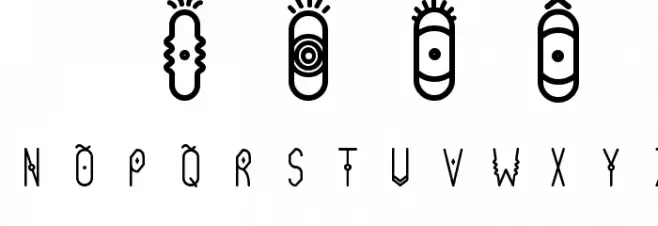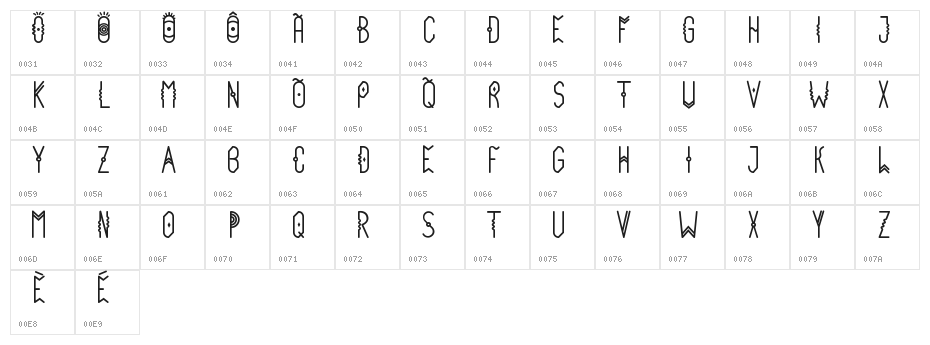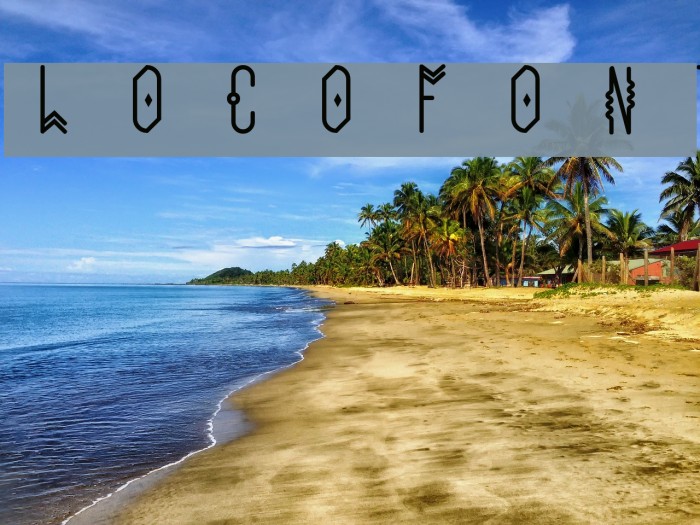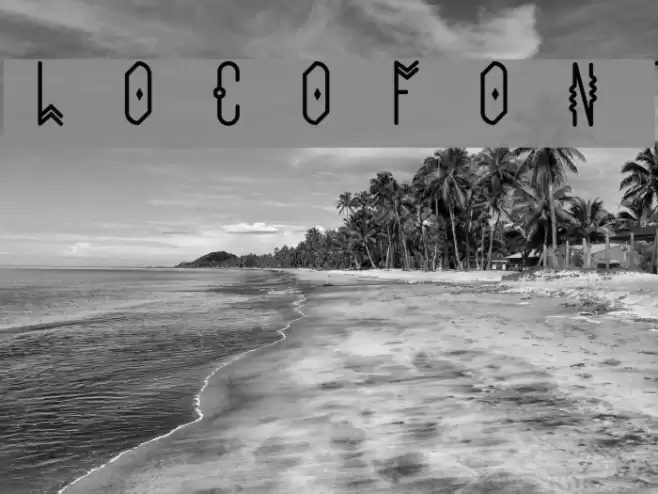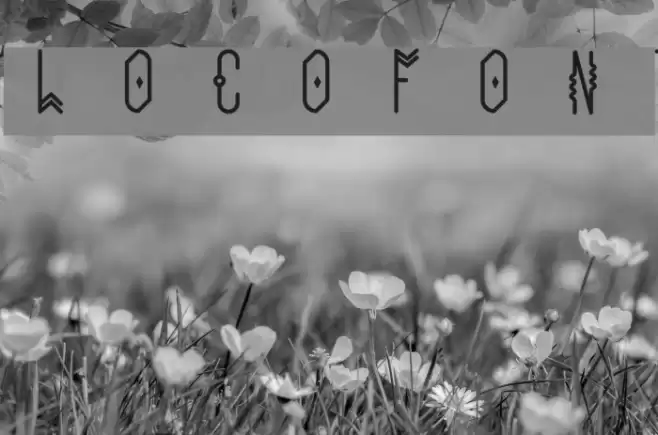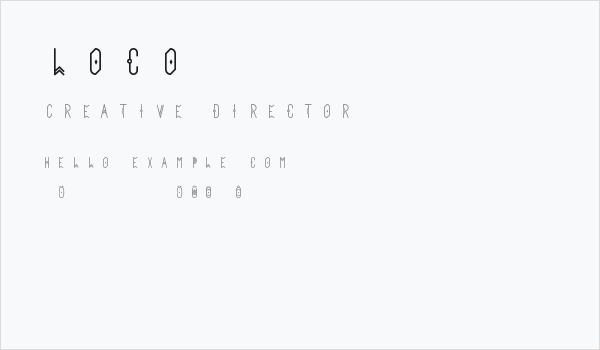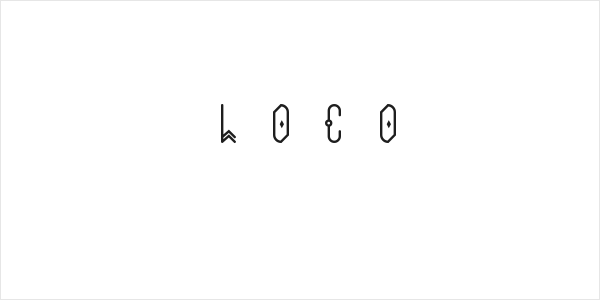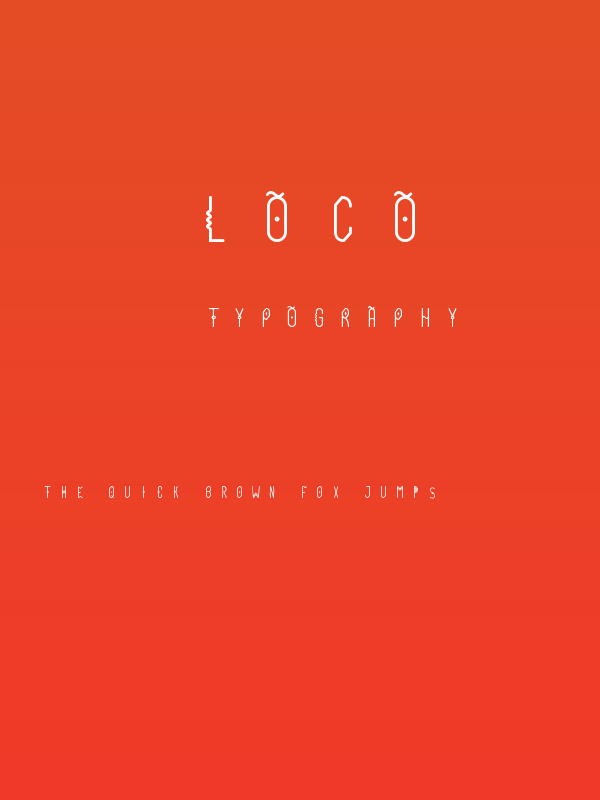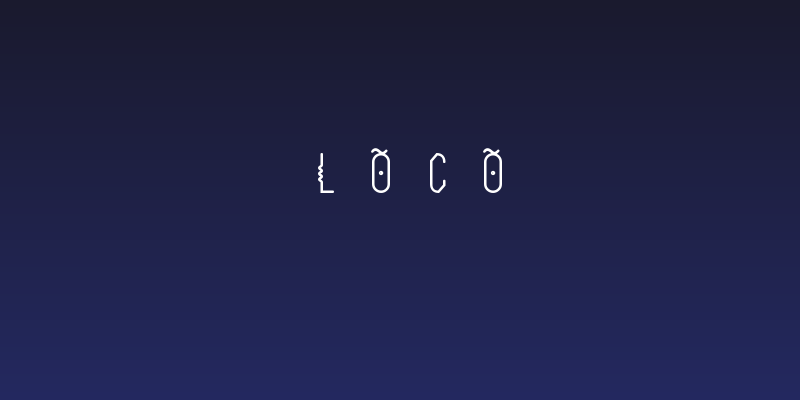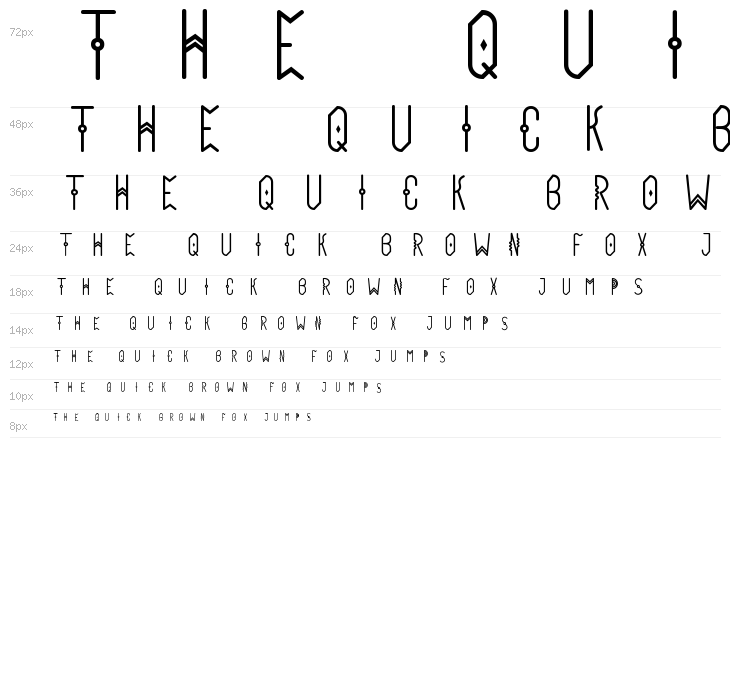
loco Font
loco Description
This font features a unique and artistic design, characterized by its decorative and abstract elements. Each letter is crafted with intricate details, incorporating geometric shapes and unexpected angles. The uppercase and lowercase letters share a consistent style, with some characters displaying mirrored or rotated elements. The numbers and special characters continue this theme, offering a cohesive and visually striking appearance. The font's distinctiveness makes it ideal for creative projects that require a bold and unconventional look.
| Use Case | Logos, Posters, Creative Branding |
| Proposed Projects | Ideal for album covers, posters, branding for creative industries, and unique logo designs. |